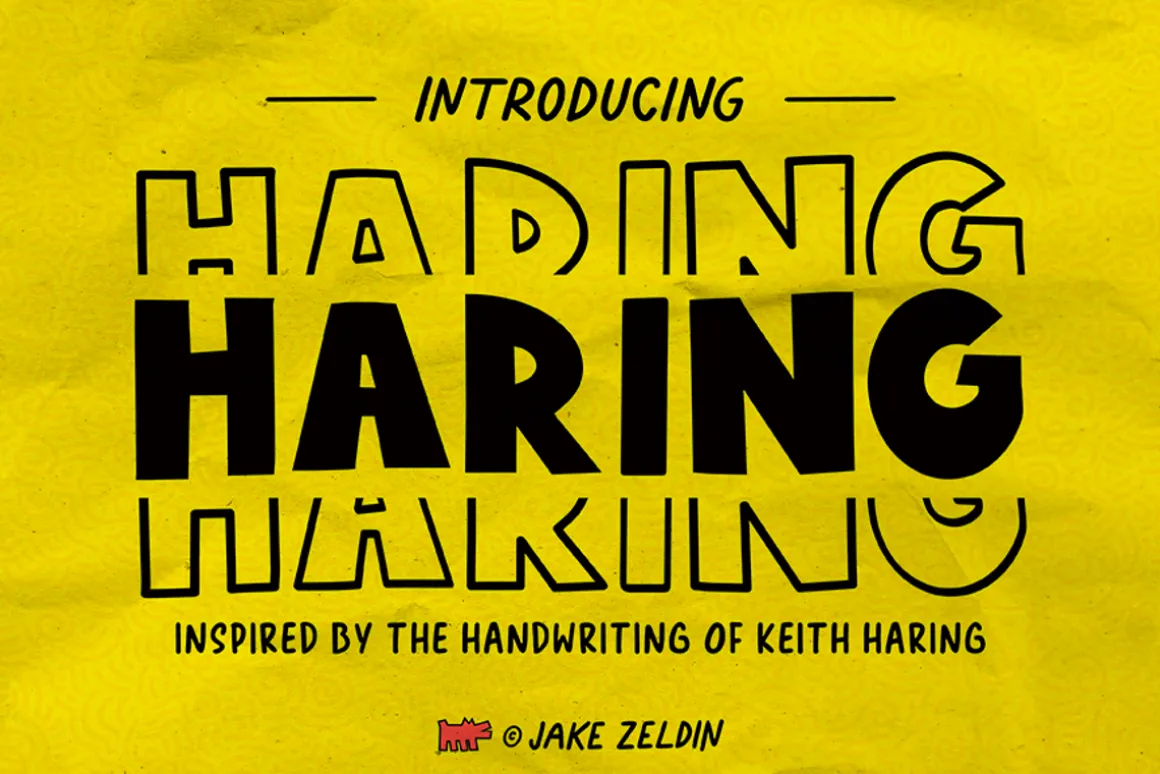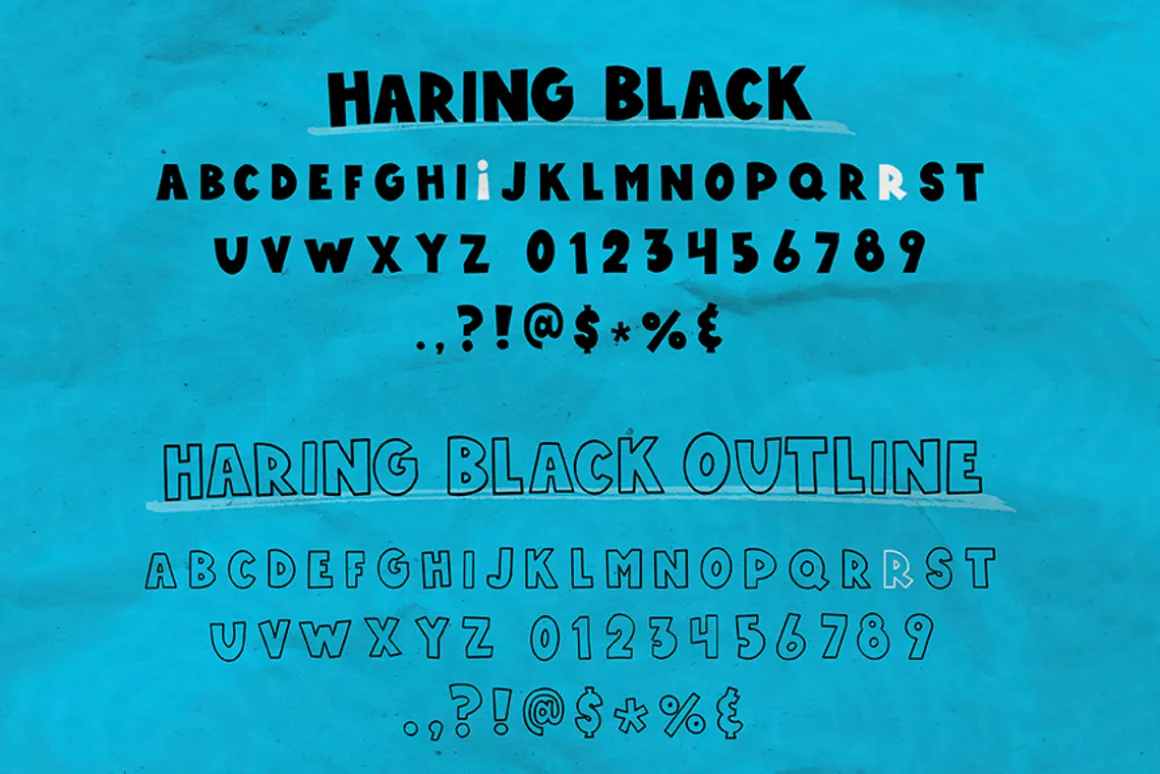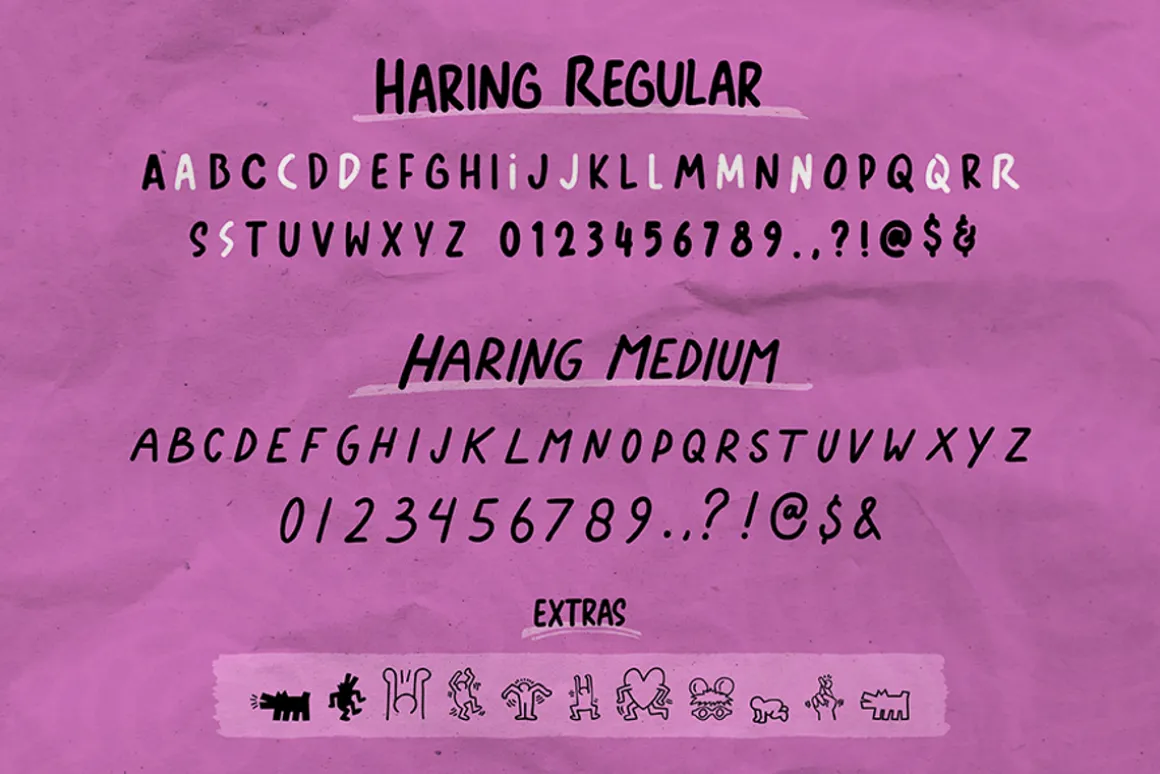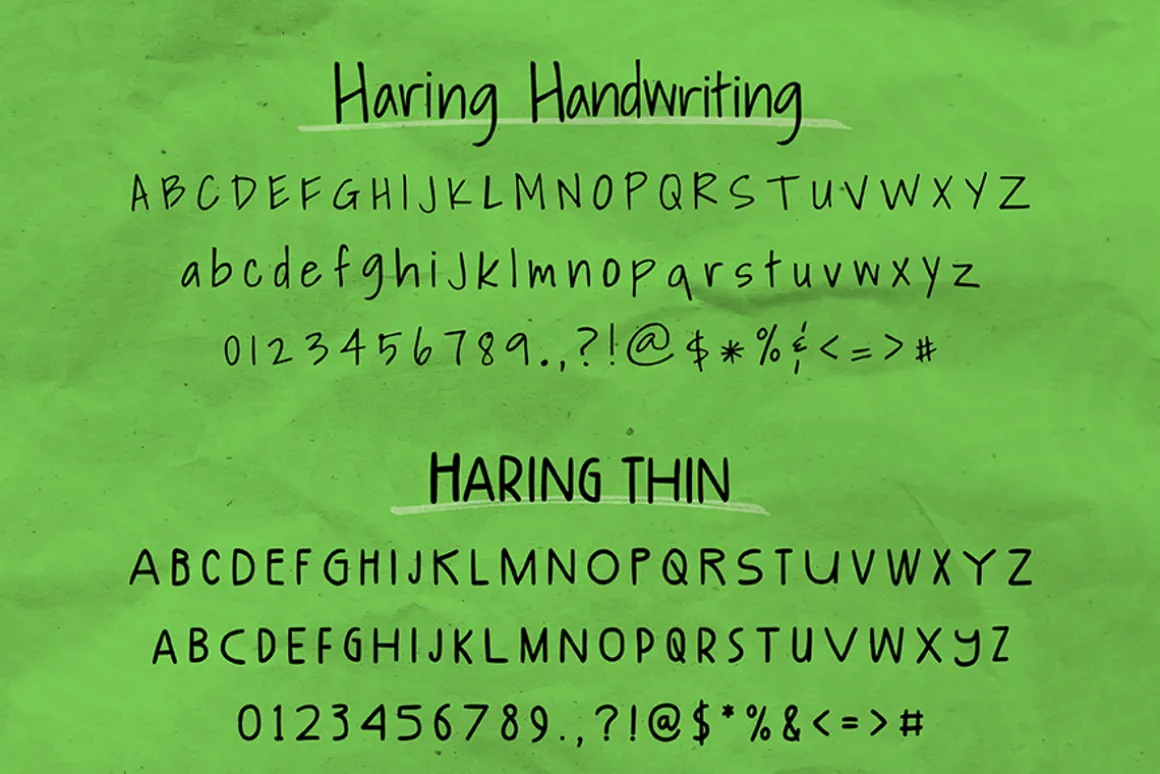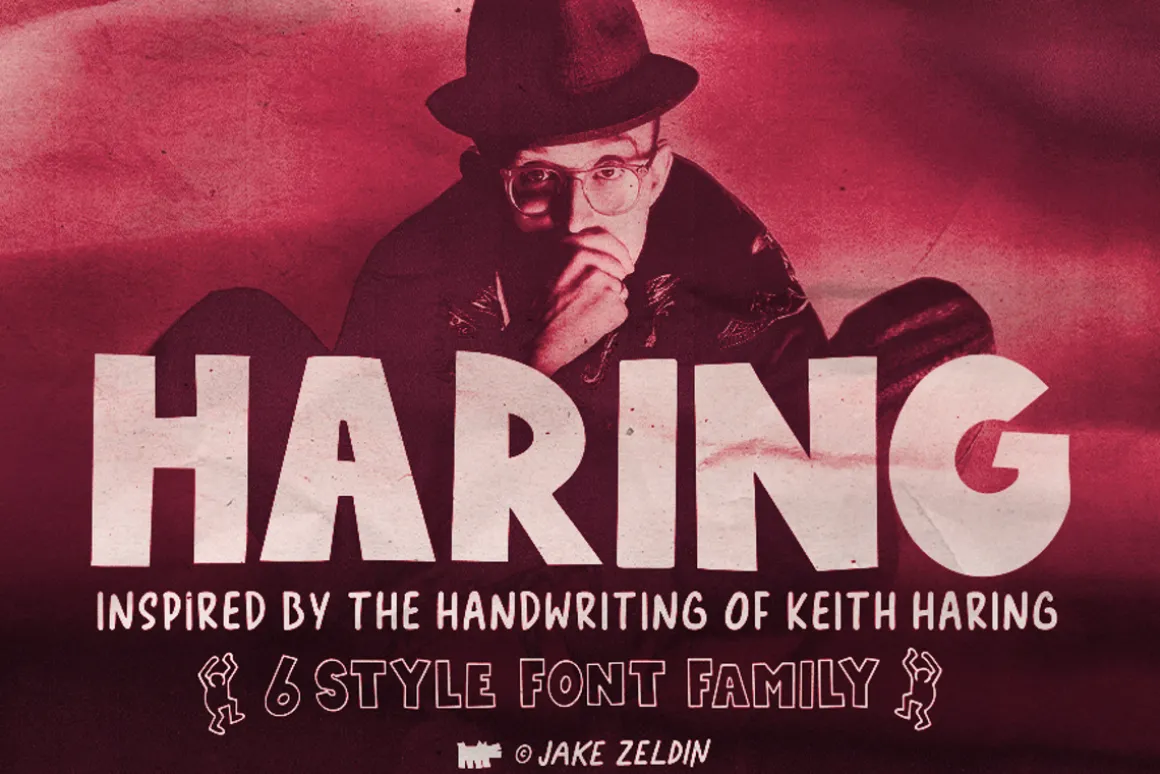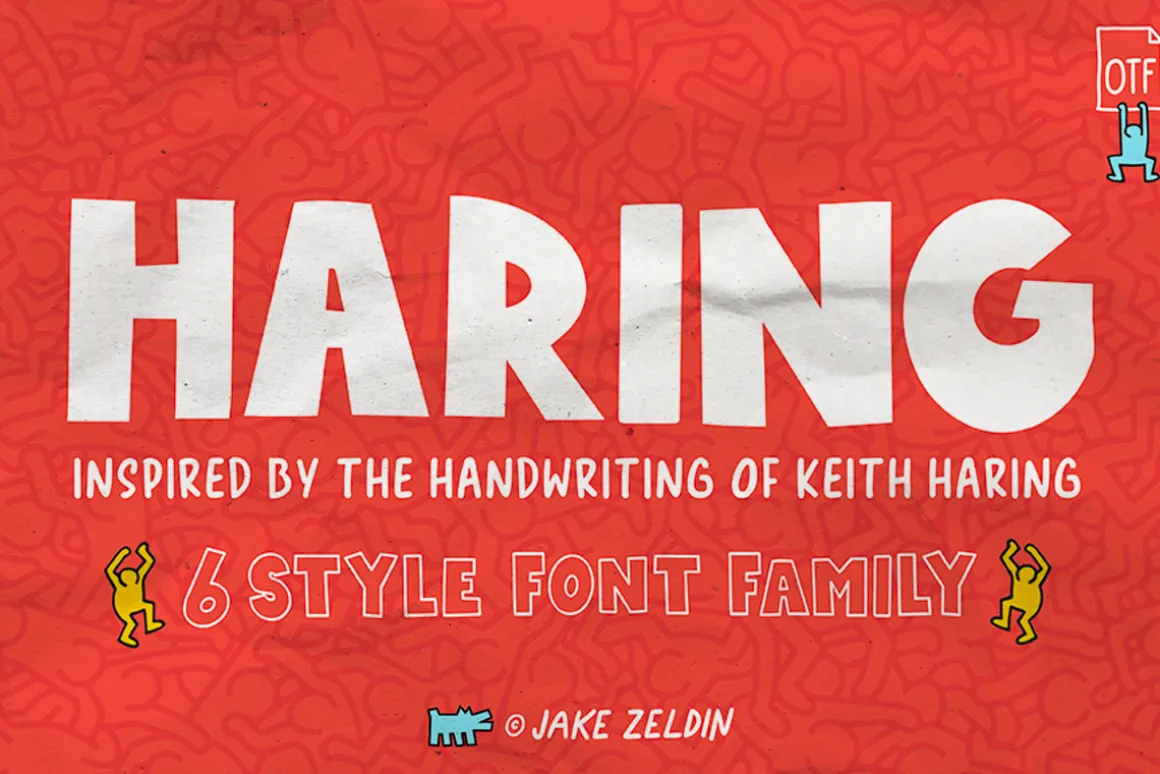
Haring is a blocky style bold display font with attitude. Bold, heavy and fun! All at the same time! Use Haring to make your designs stand out and look fresh! Based on the handwriting of Artist, Keith Haring; through a comprehensive digitization process. With 6 different styles, Haring was created to be suitable to help you get a sense of the energy and movement embodied in Keith Haring’s works. Add this font to your favourite creative ideas and notice how it makes them come alive!
- 6 Fonts (Handwriting, Thin, Regular, Medium, Black, Black Outline)
- Uppercase & Lowercase
- Numbers & Punctuation
- Alternates & Ligatures